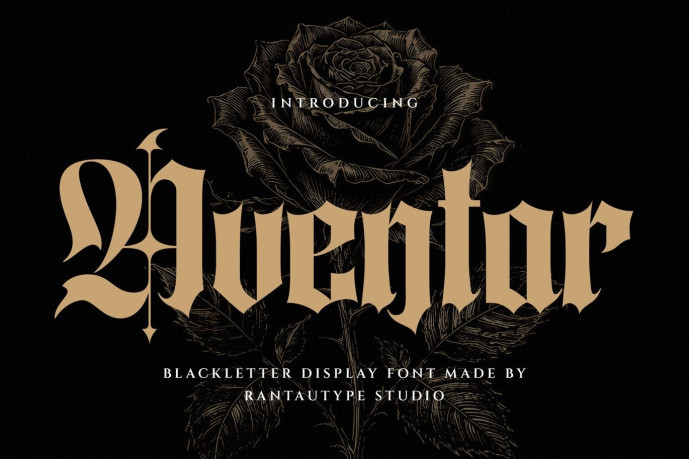
Aventar Blackletter display font
Designer: Yudi Pratama Chandra
Aventar Font is a black-letter typeface that reflects the timeless elegance of medieval European lettering while introducing a refined, contemporary character that makes it suitable for modern brands. Inspired by Gothic manuscripts, cathedral inscriptions, and Old English calligraphy.
Aventar is the ideal choice for any creative activity, creating modern lifestyle designs such as logos, titles, covers, branding, invitations, wedding motifs, displays and magazines, social media posts, advertisements, printed quotes, product packaging, corporate branding, product designs, labels, photography, watermarks, special events and any other project with a gothic-medieval touch.
Alternation and ligature
Supports multilingual characters